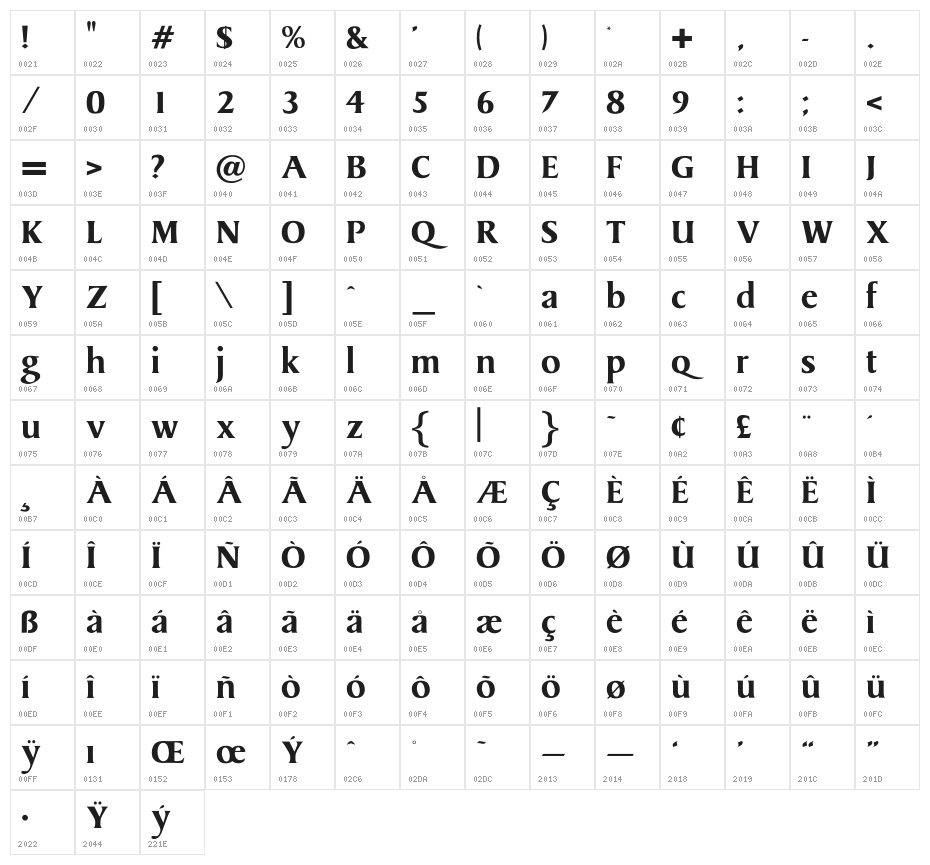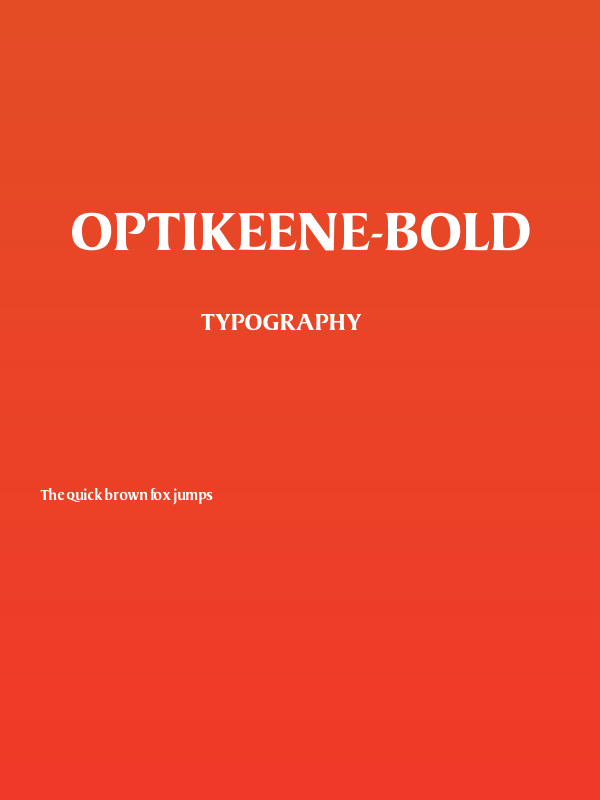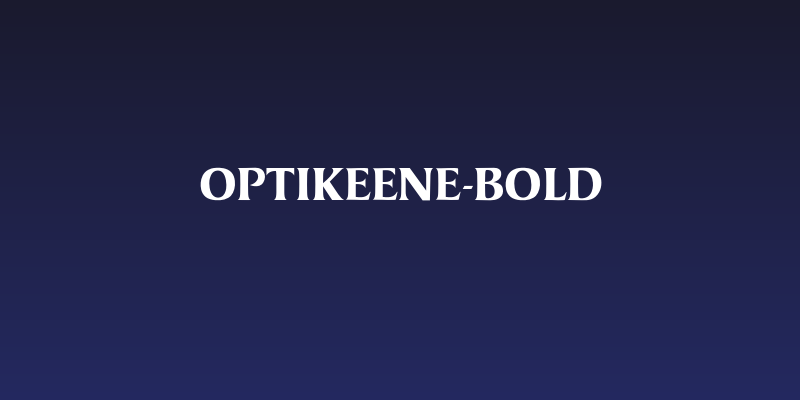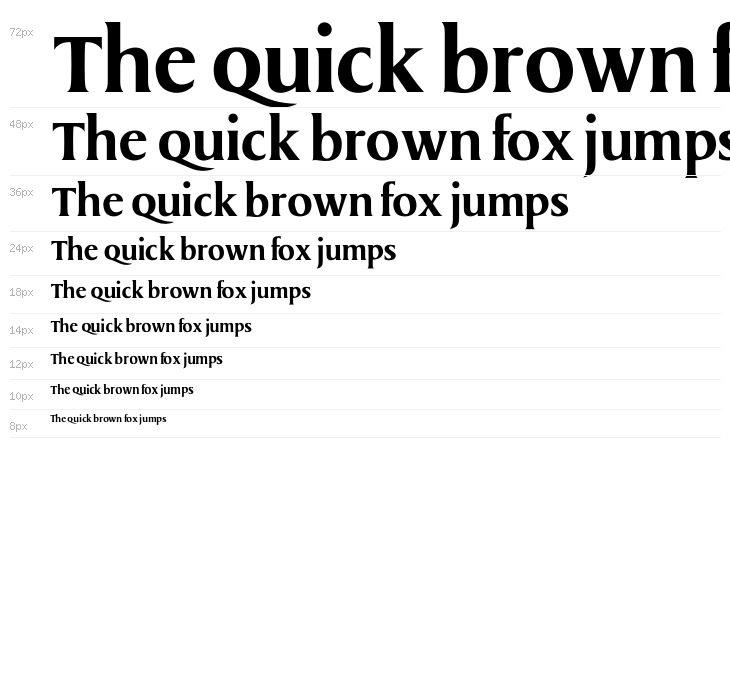
OPTIKeene-Bold Font
OPTIKeene-Bold Description
This font features a bold and assertive serif style, characterized by its strong, thick strokes and high contrast between thick and thin lines. The serifs are pronounced, adding a classic yet powerful touch to the overall appearance. The uppercase letters are tall and commanding, while the lowercase letters maintain a consistent flow with slightly rounded edges. The numerals are equally bold, ensuring readability and impact. Special characters are designed with the same boldness, making them stand out effectively. This font is suitable for making strong visual statements.
Overall StyleClassic
Proposed ProjectsIdeal for headlines, posters, branding, and any project requiring a strong, classic presence.